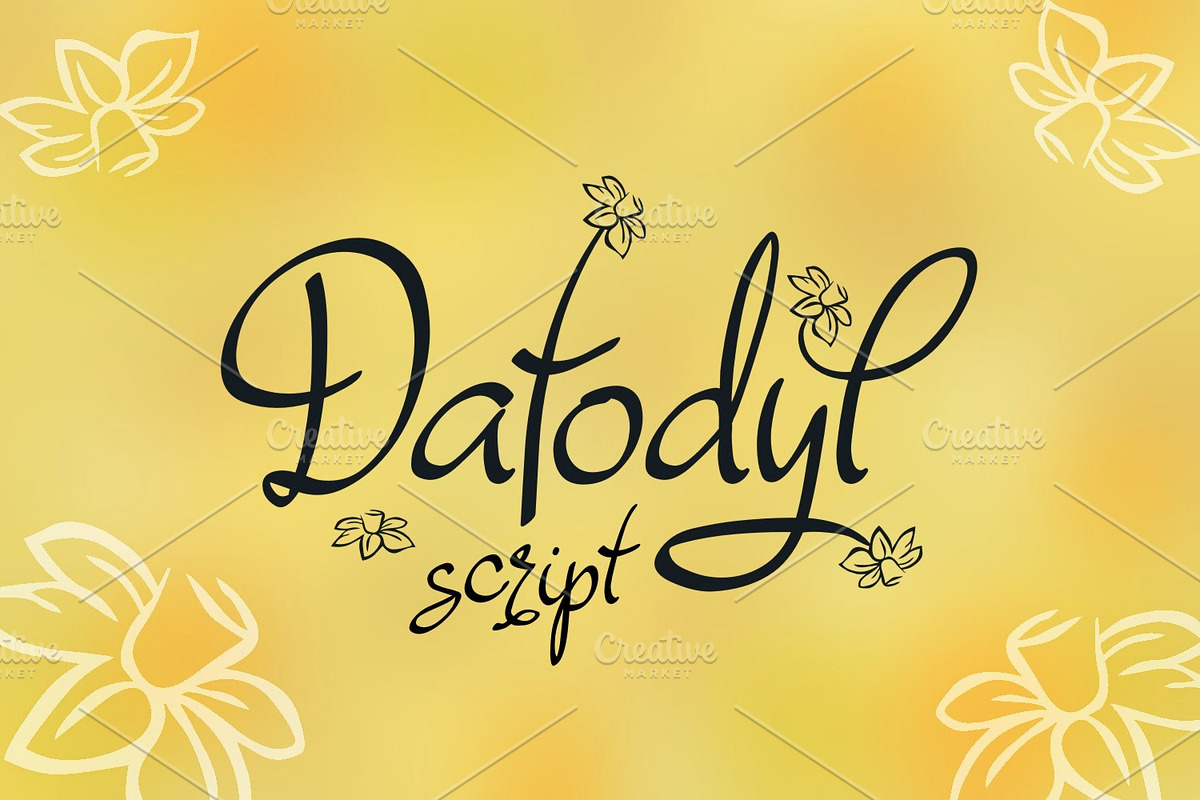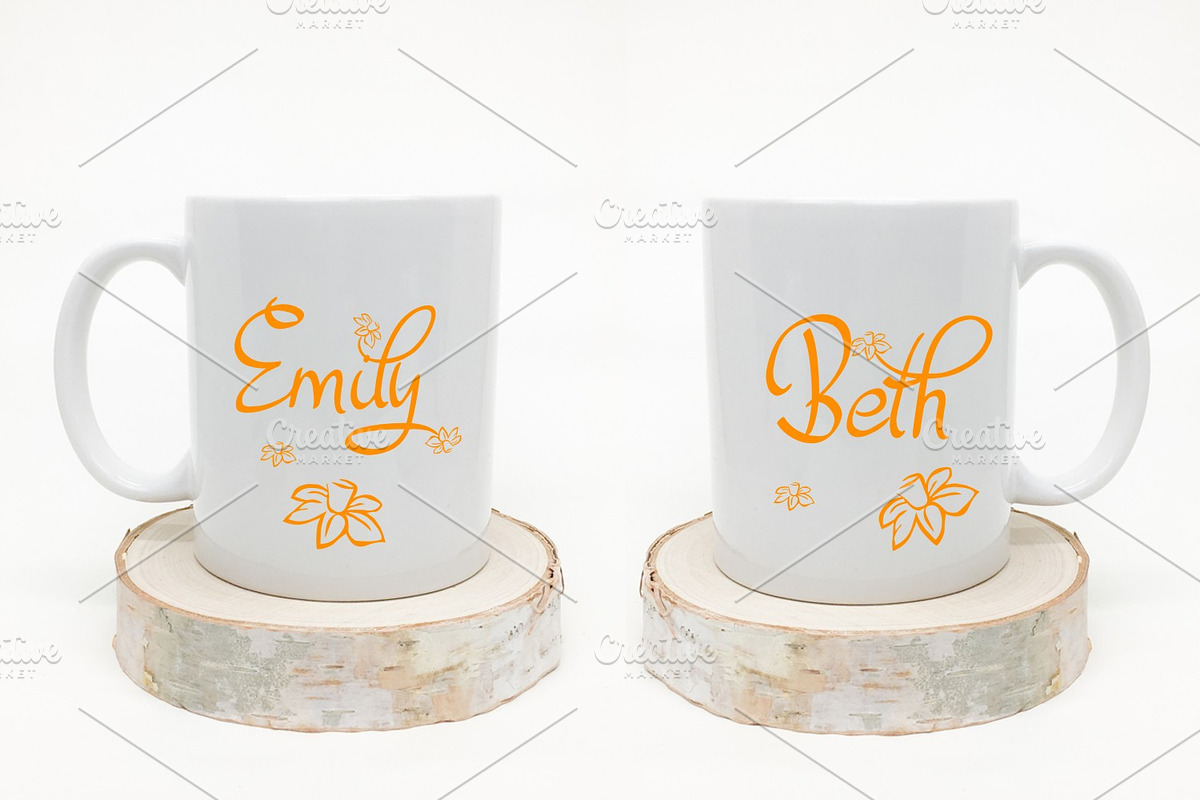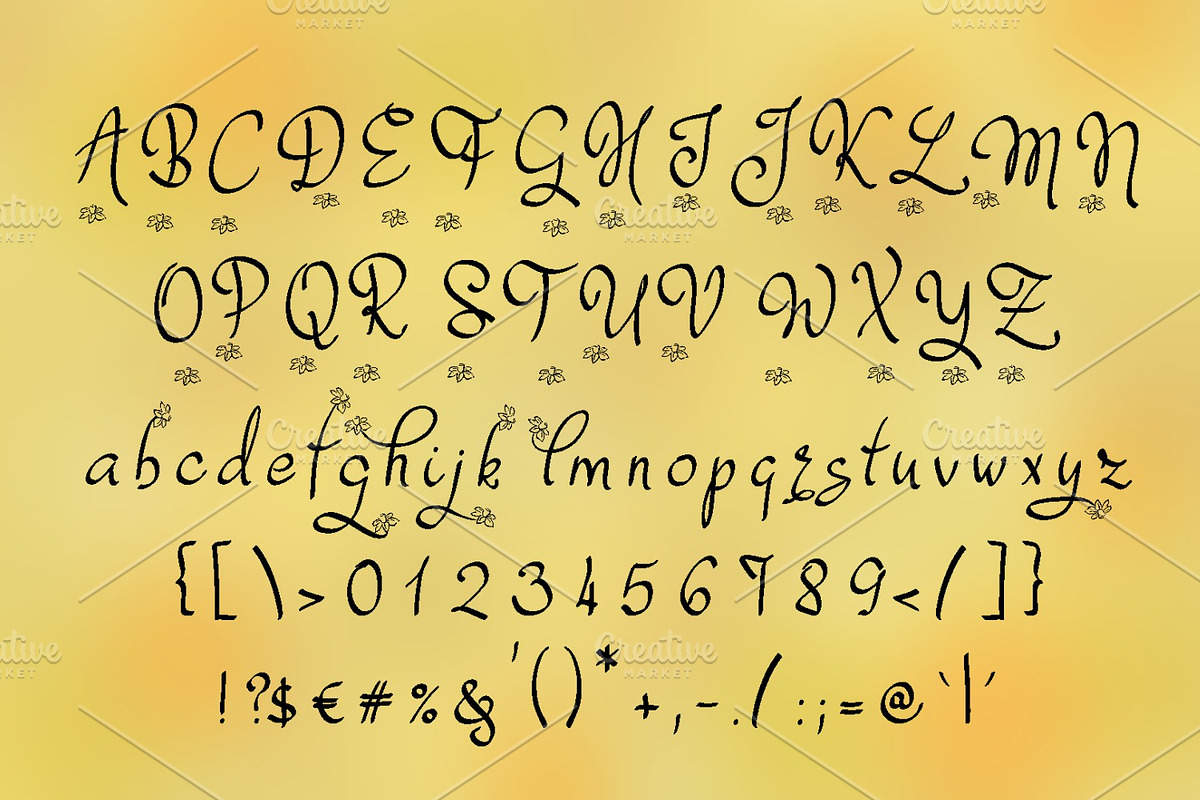
Dafodyl
Introducing Dafodyl floral decorated handwritten typeface. Great for cards and for many craft projects! Download and use across a huge range of programs such as Adobe programs, Corel programs, Cricut and many others!
Dafodyl by Digital Typeface Studio fits naturally into Branding, posters, packaging, typography.